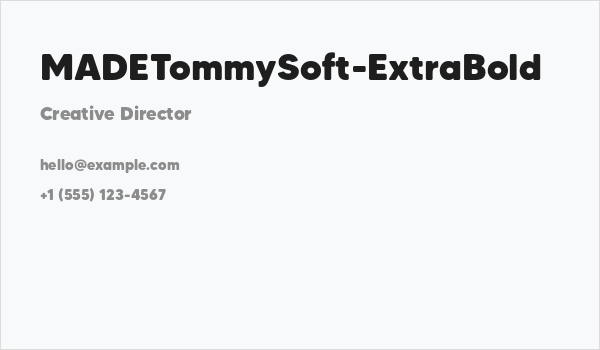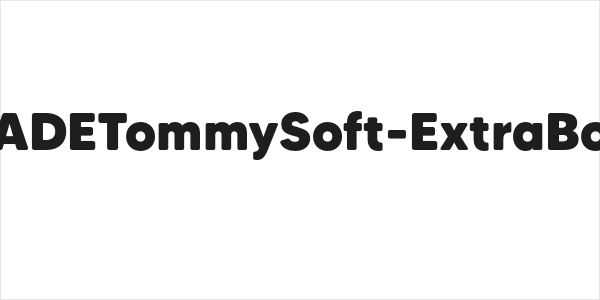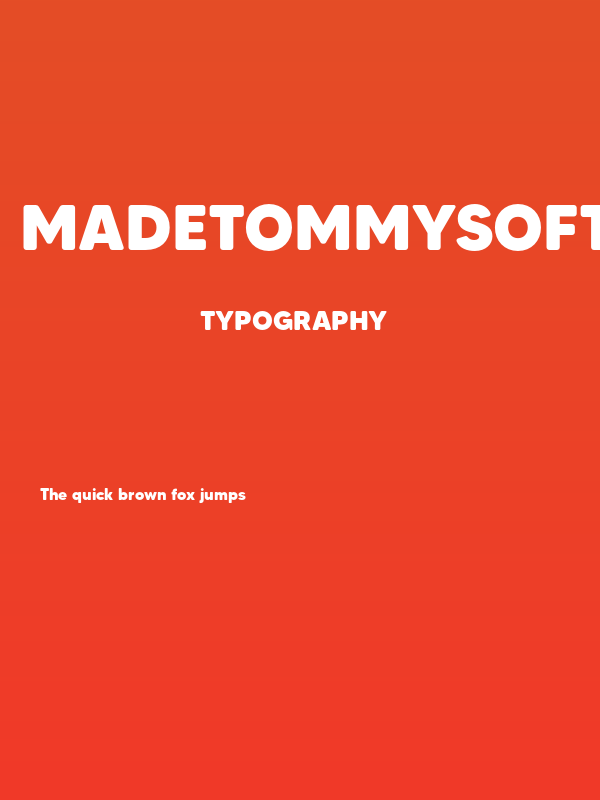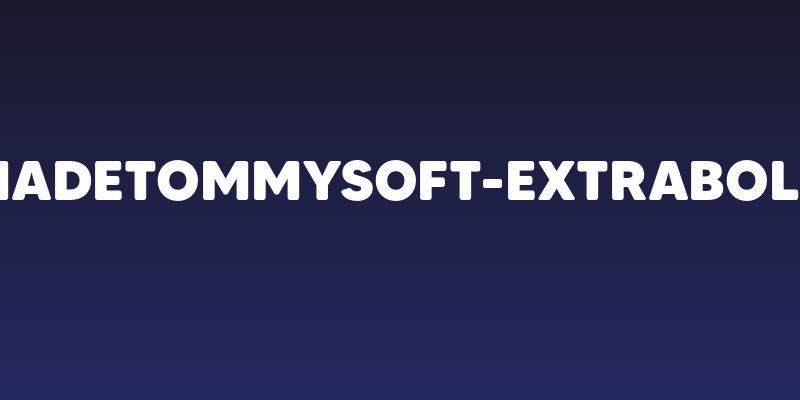
MADETommySoft-ExtraBold Font
MADETommySoft-ExtraBold Description
This font features a bold and rounded sans-serif style, characterized by its thick strokes and smooth curves. The letters are uniform in weight, providing a strong and cohesive appearance. The rounded edges give it a friendly and approachable feel, making it suitable for a variety of design applications. The numbers and special characters maintain the same boldness and rounded style, ensuring consistency across all elements. This font is highly legible and versatile, making it ideal for both digital and print media.
| Proposed Projects | Ideal for branding, headlines, posters, and digital media where a strong and friendly presence is desired. |